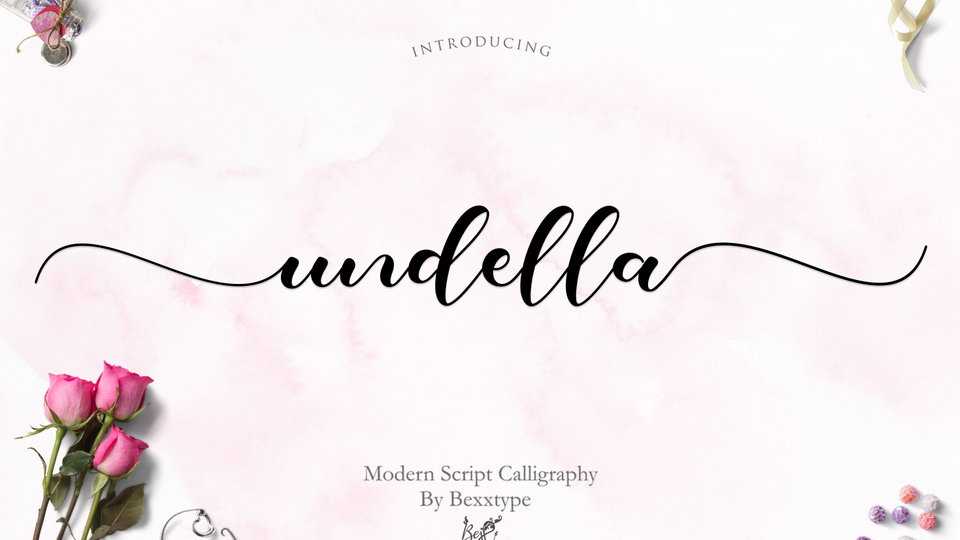
Download Undella Script, a lovely modern calligraphy font with romantic feel, ideal for wedding decoration, logos, branding, social media, letters and cards and much more.
Designer: Bexxtype